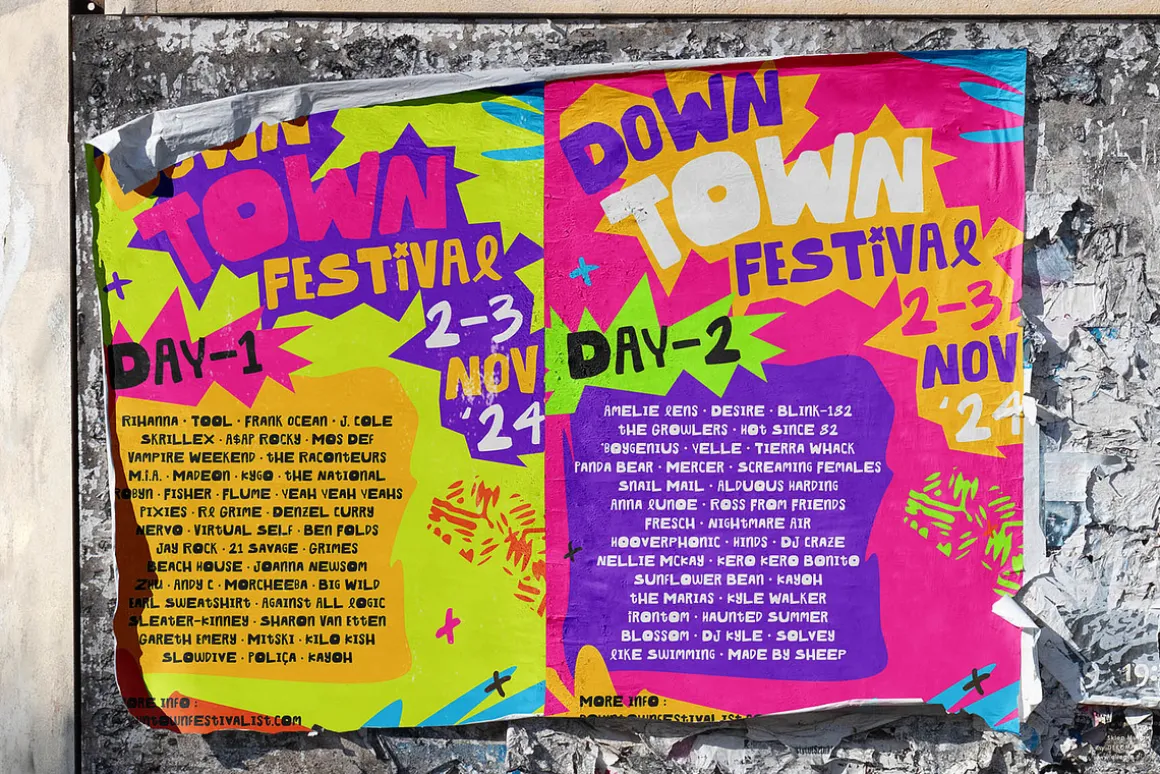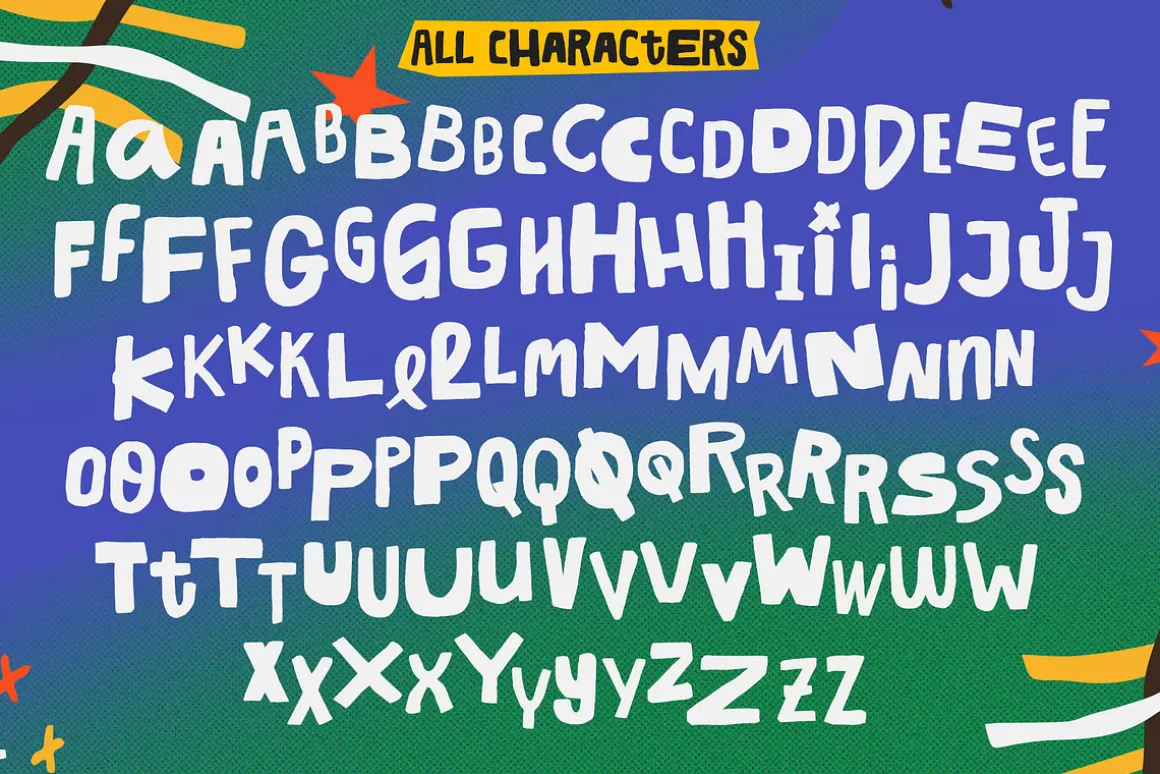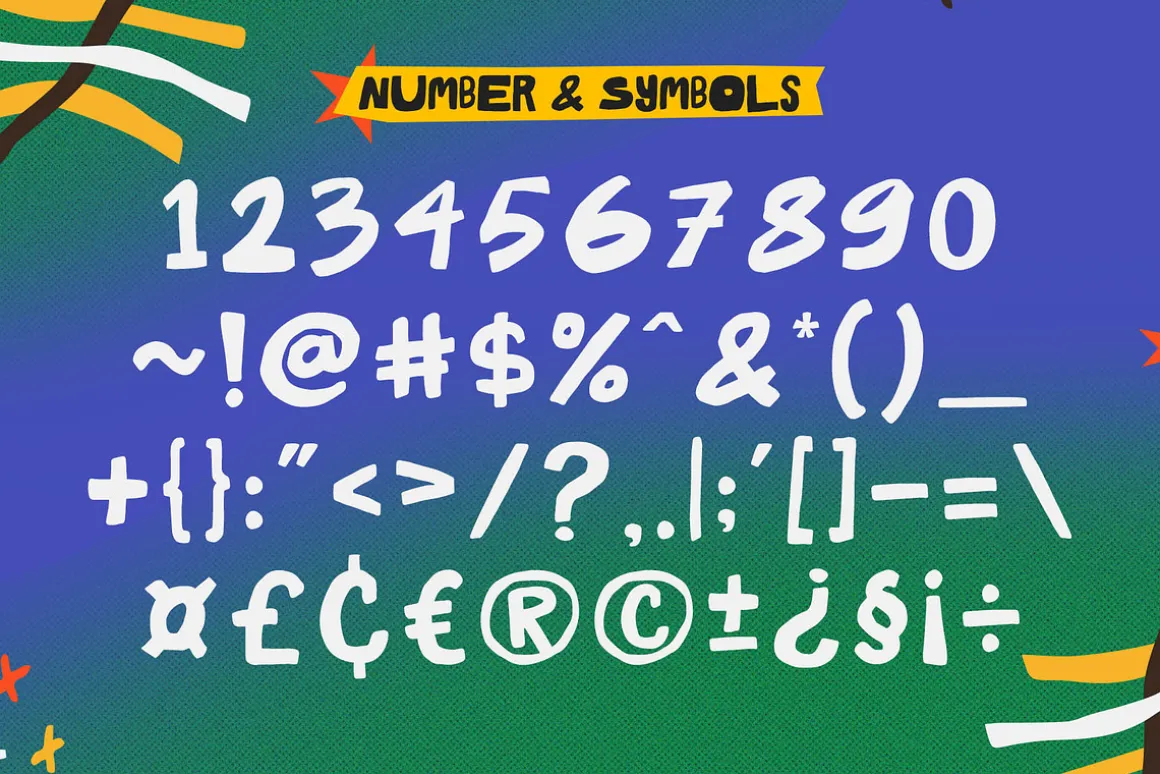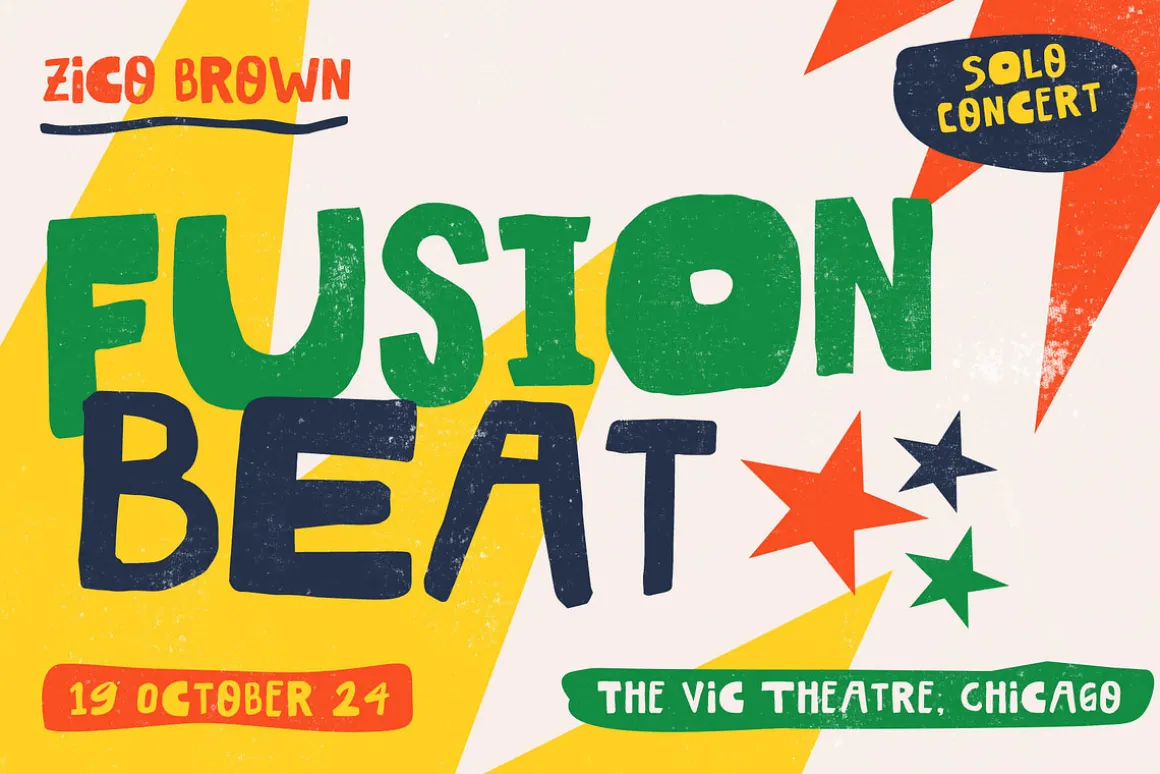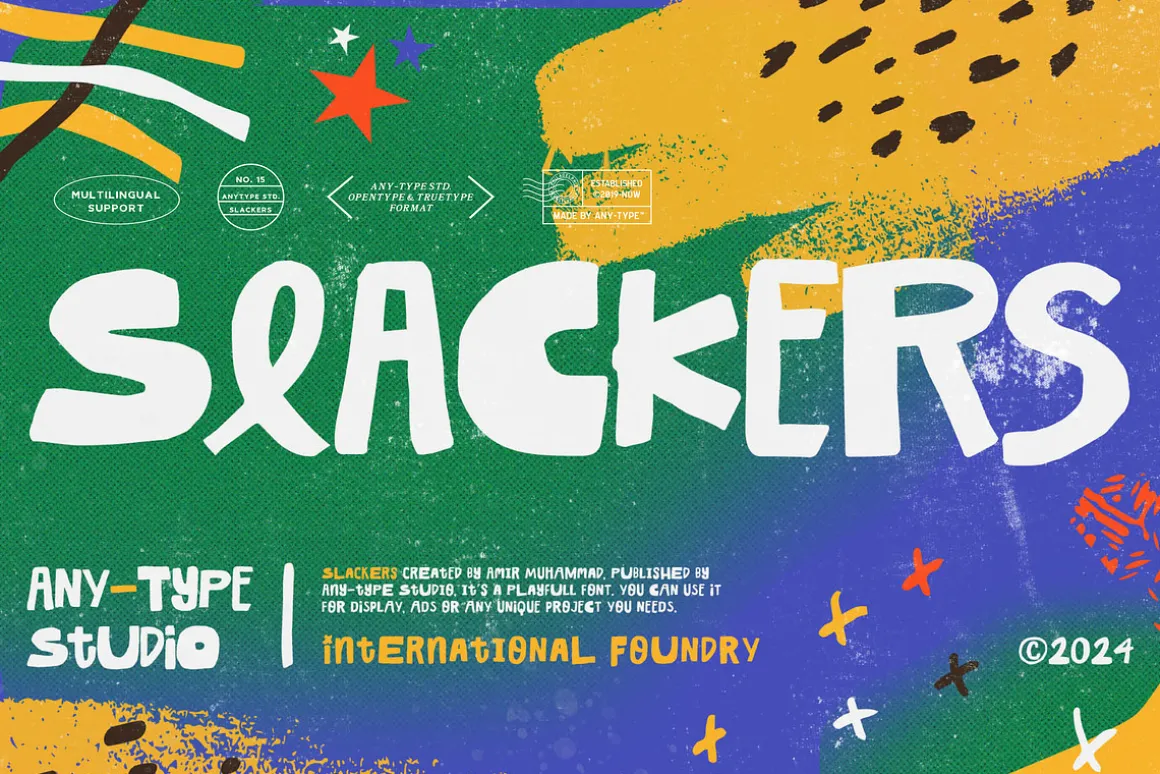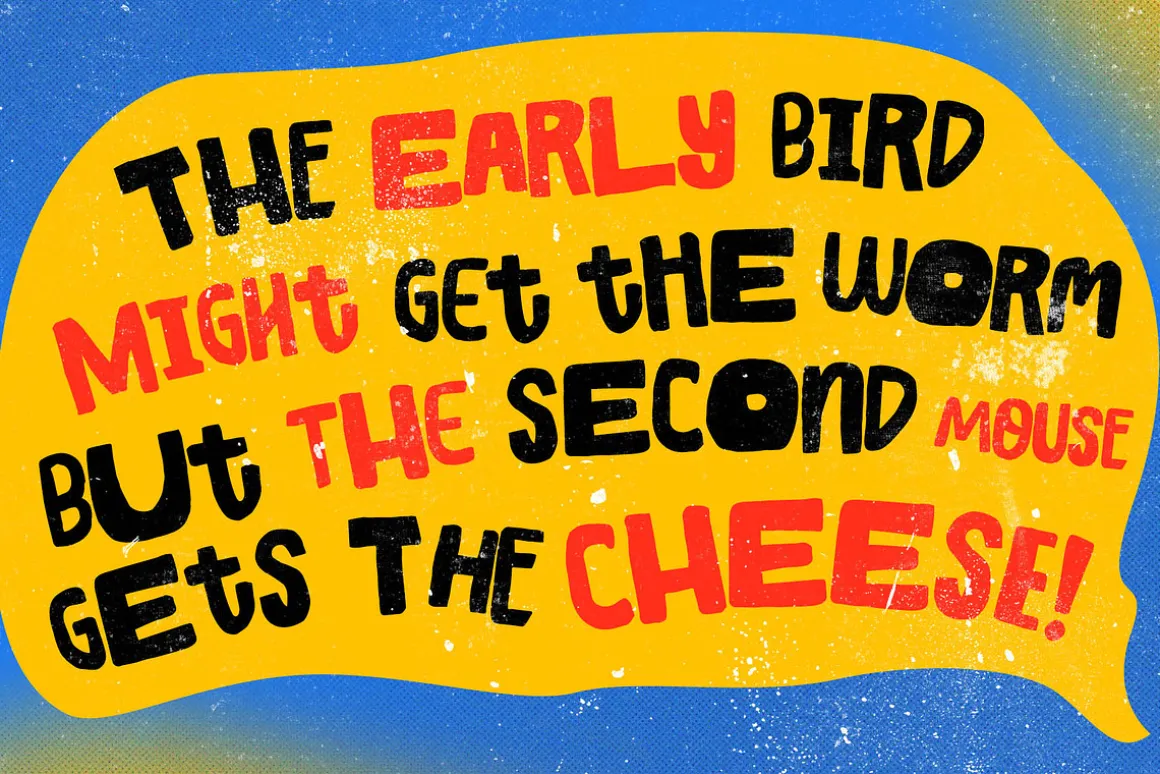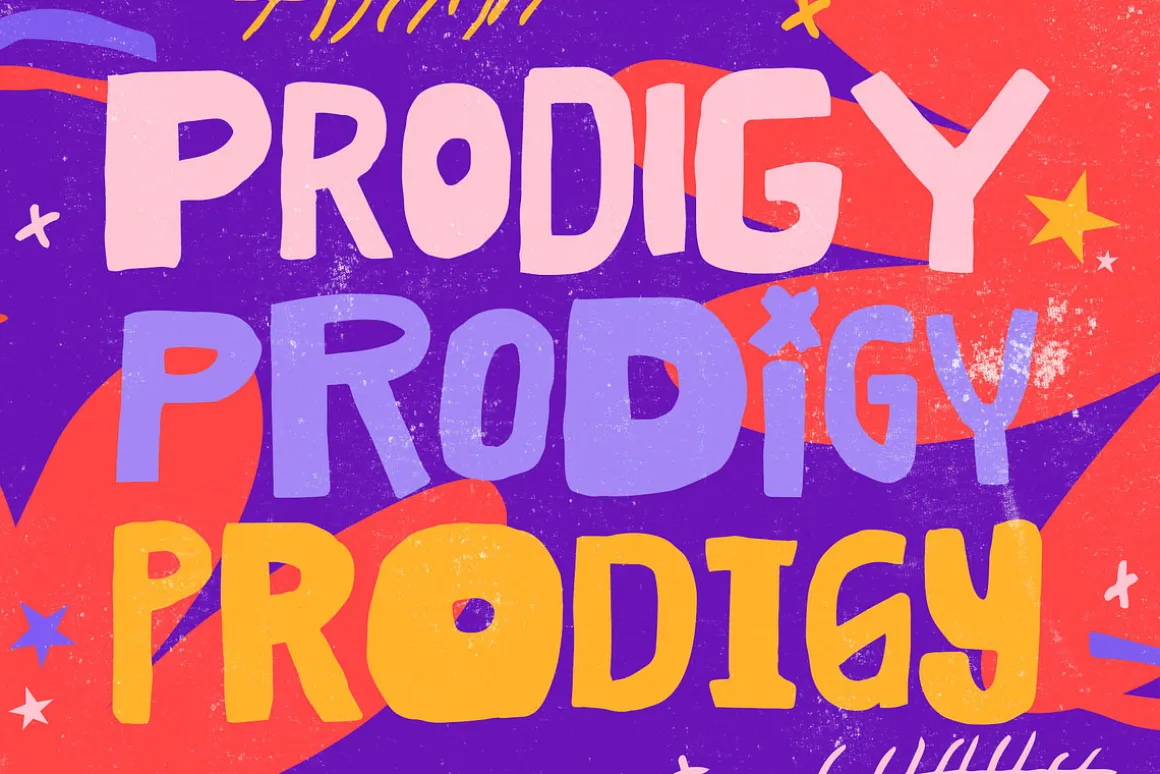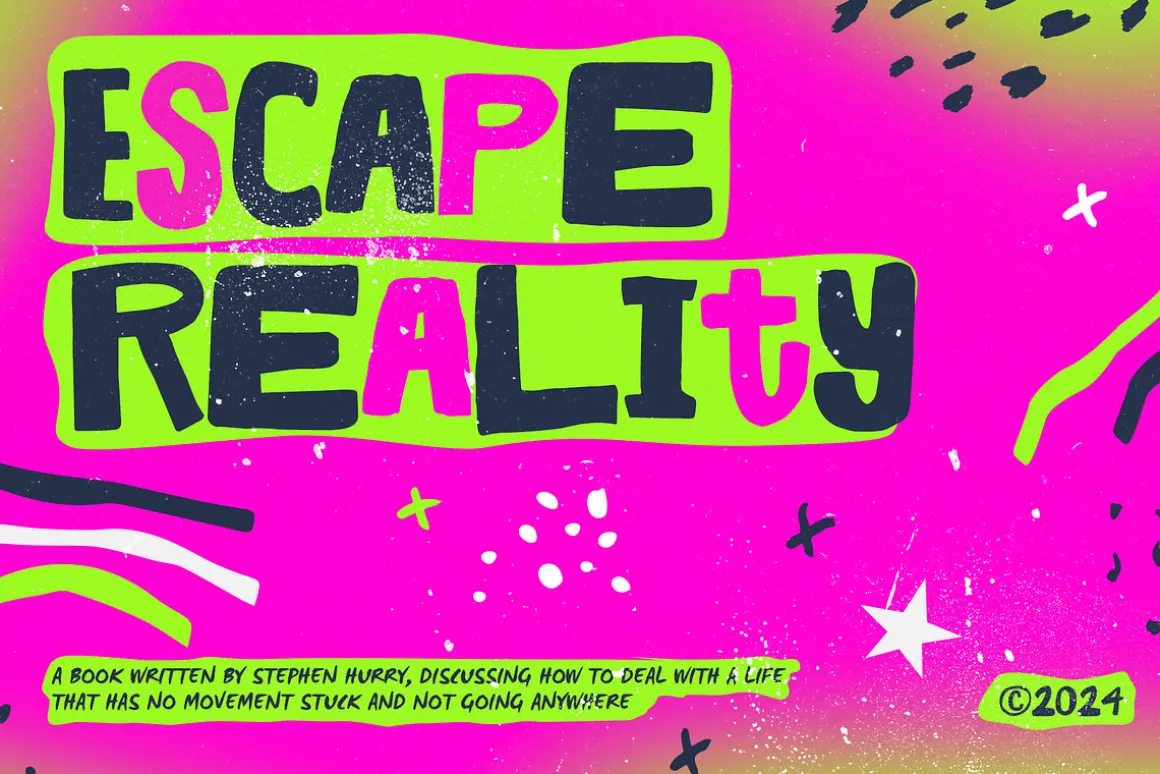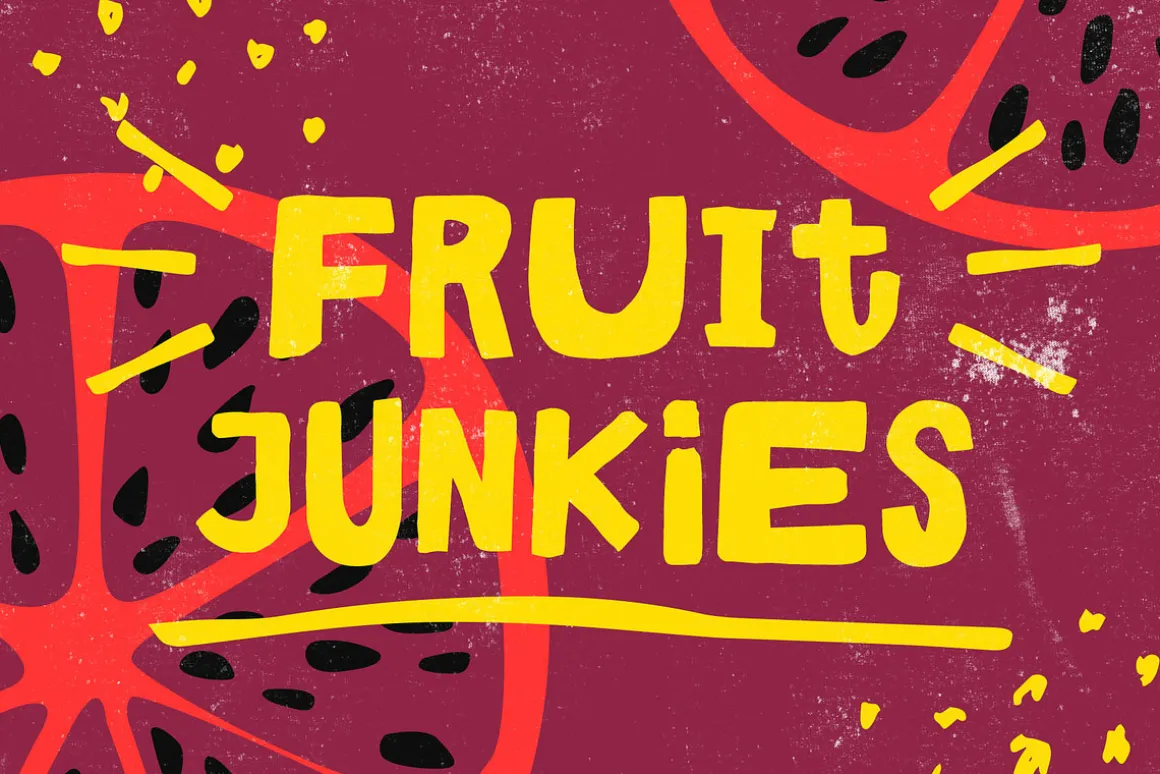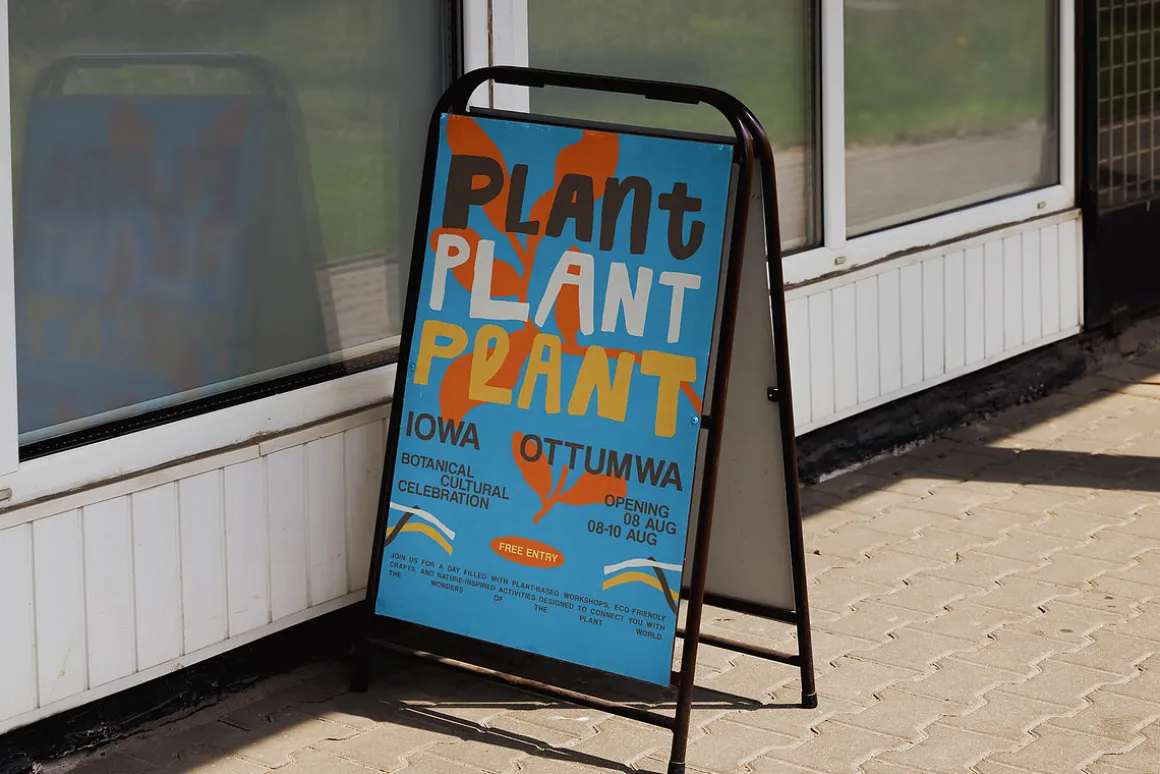
AT Slackers Hand Drawn Font
Slackers is handmade vintage sans fonts. Inspired by classic western culture, custom culture motorcycle and combining with vintage touch. This font would be perfect to combine in your design, especially on vintage design, poster and many more. This fonts comes with opentype and truetype features also webfont format also comes with multilingual support. There’s so many alternate in each character so you can mix and match with your design style.